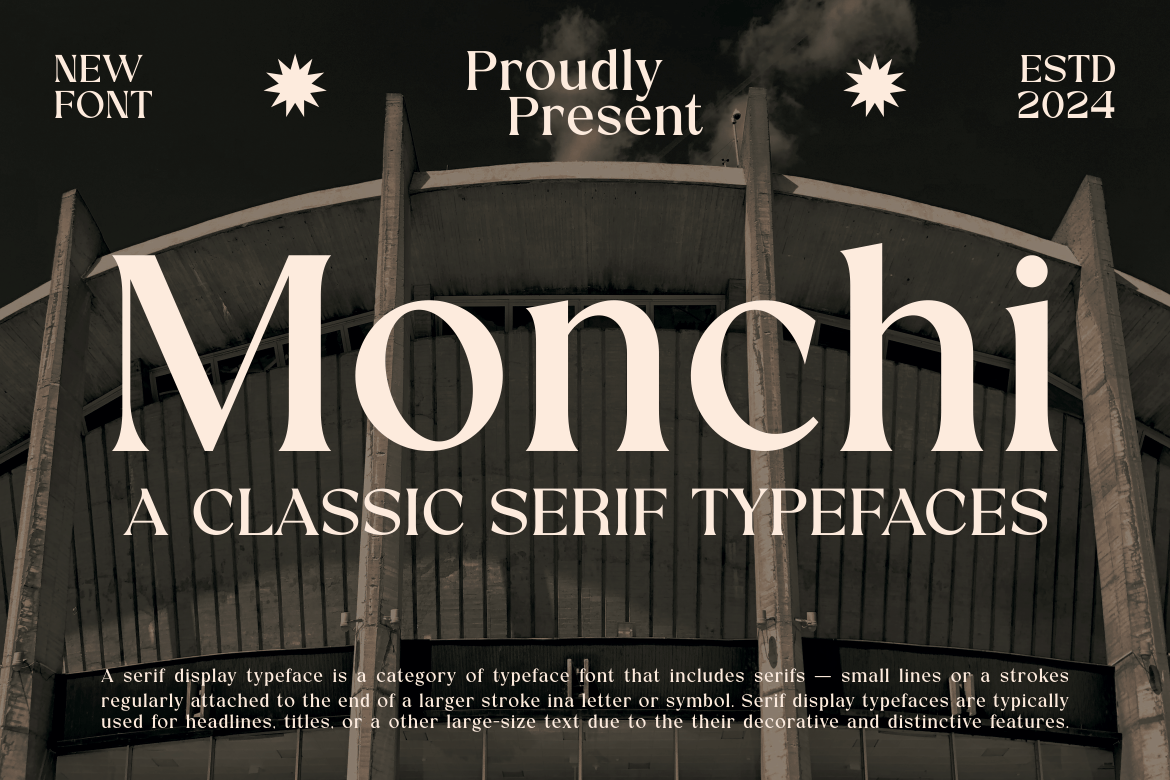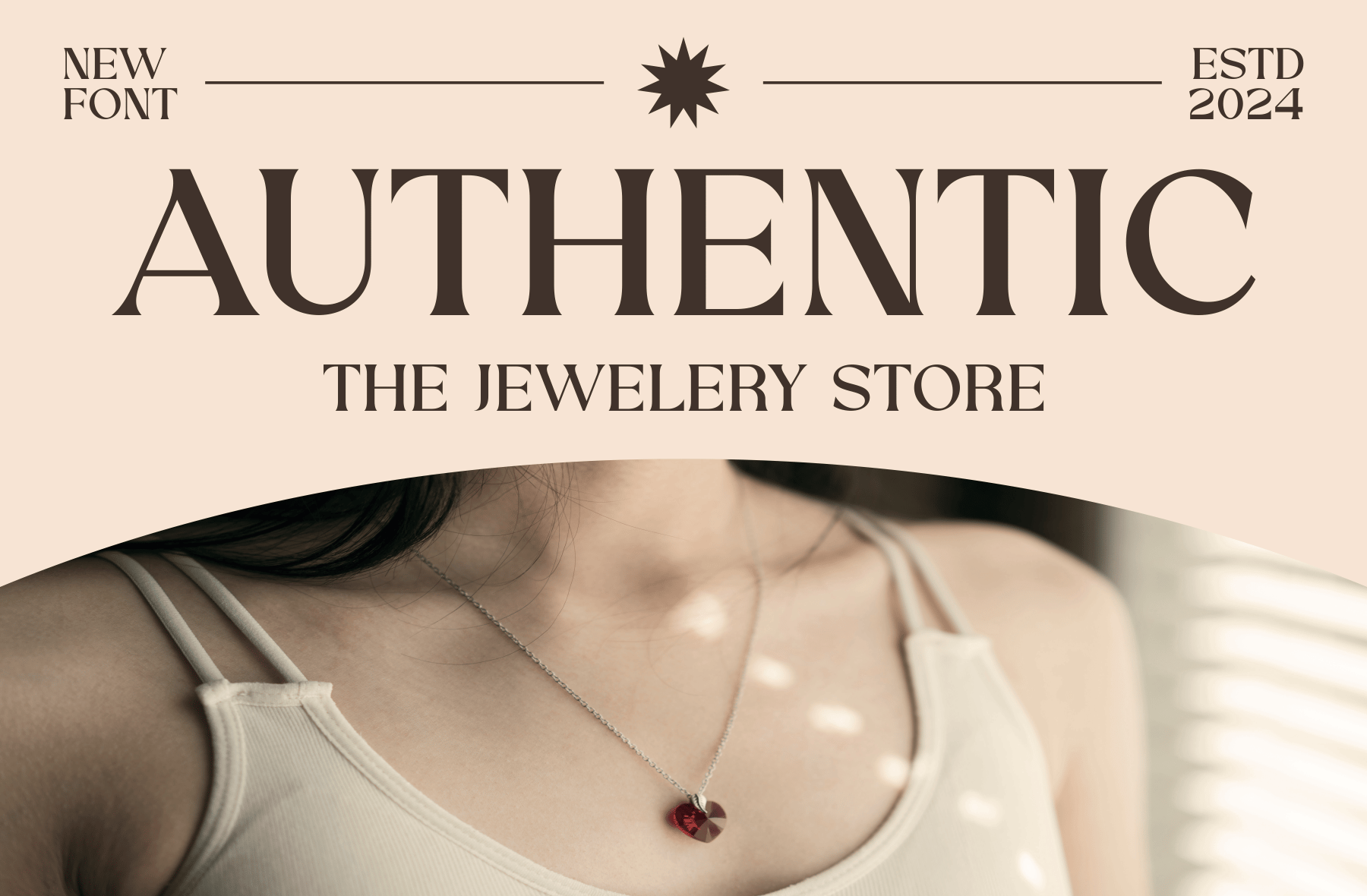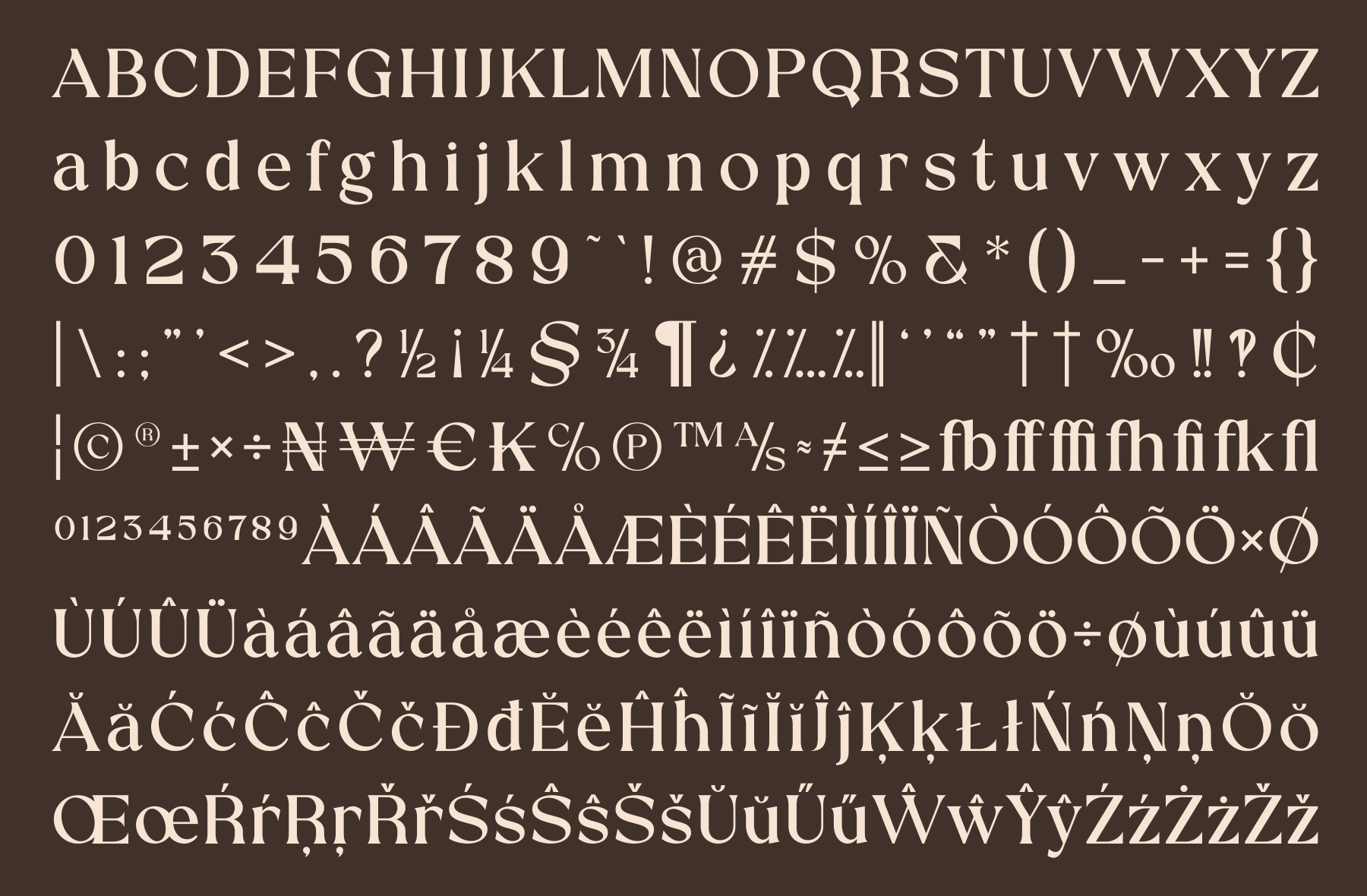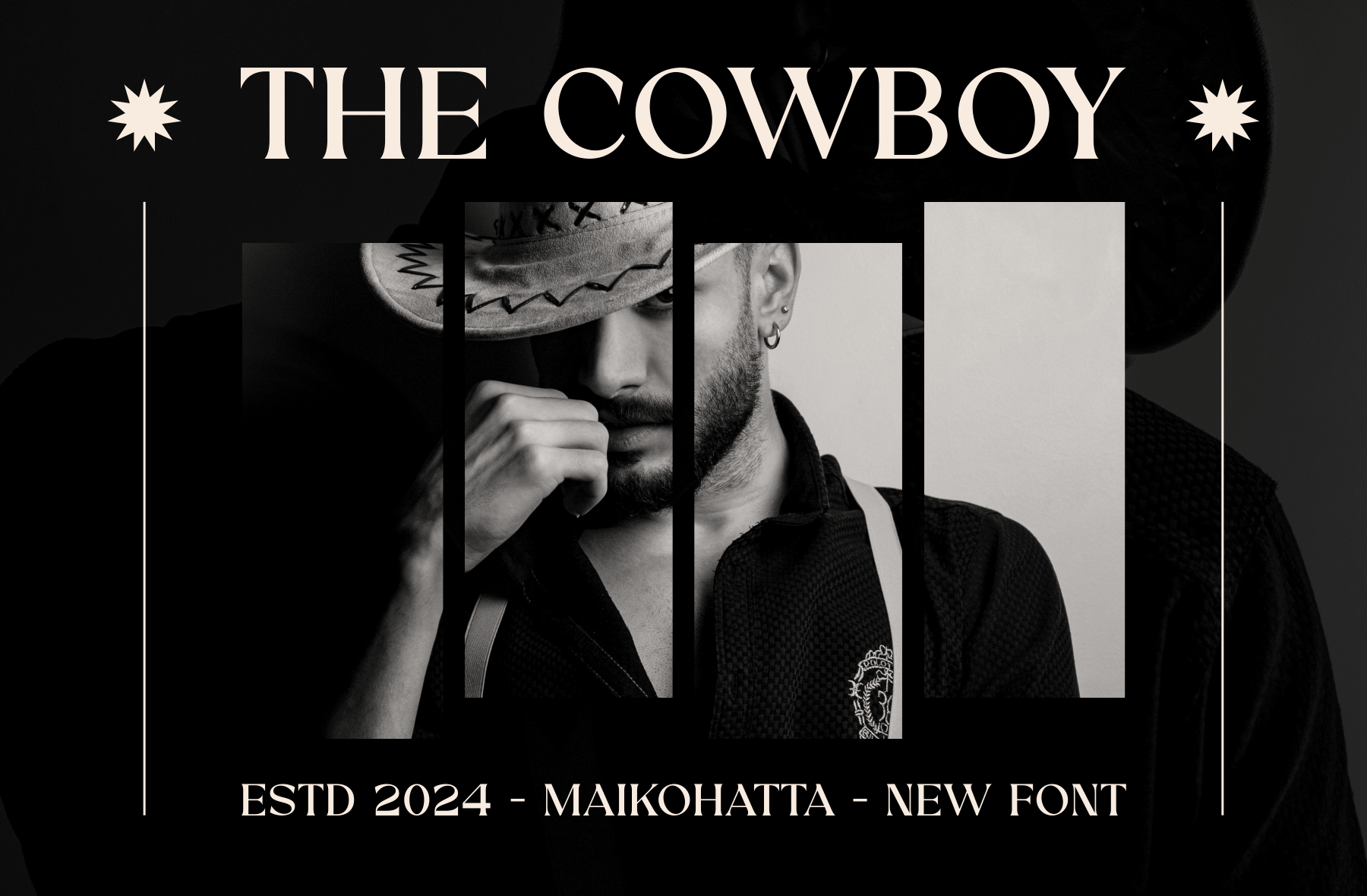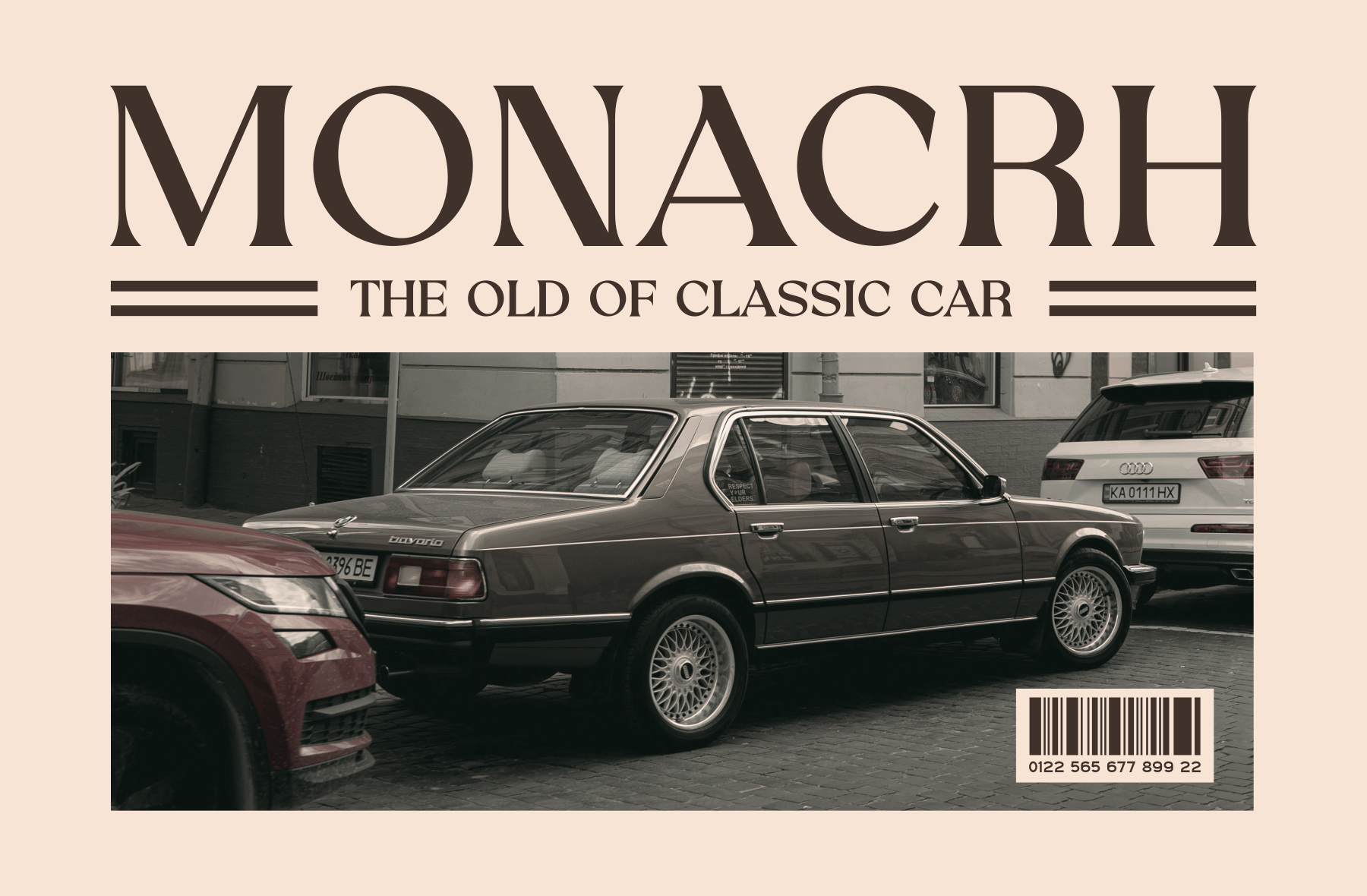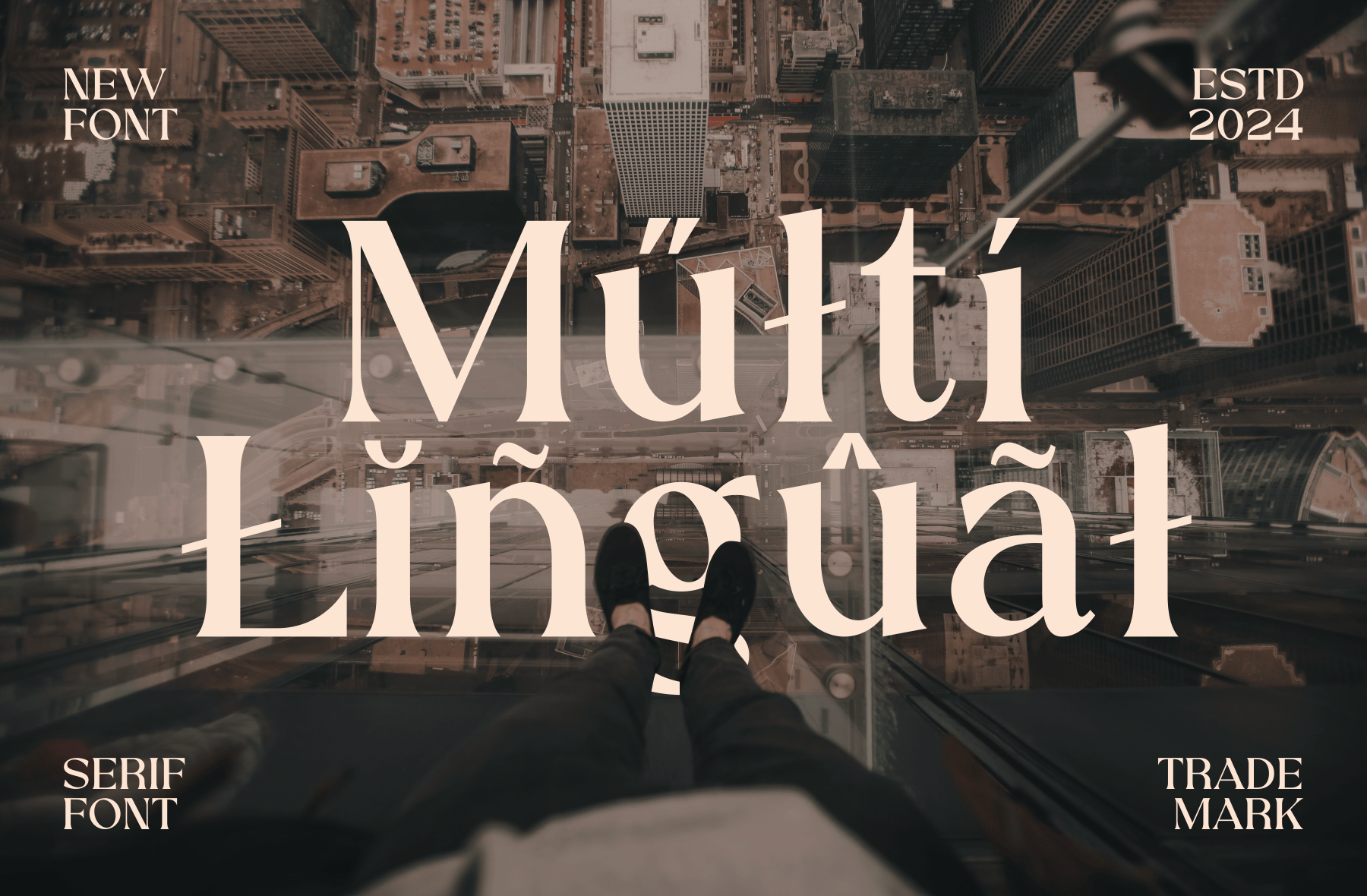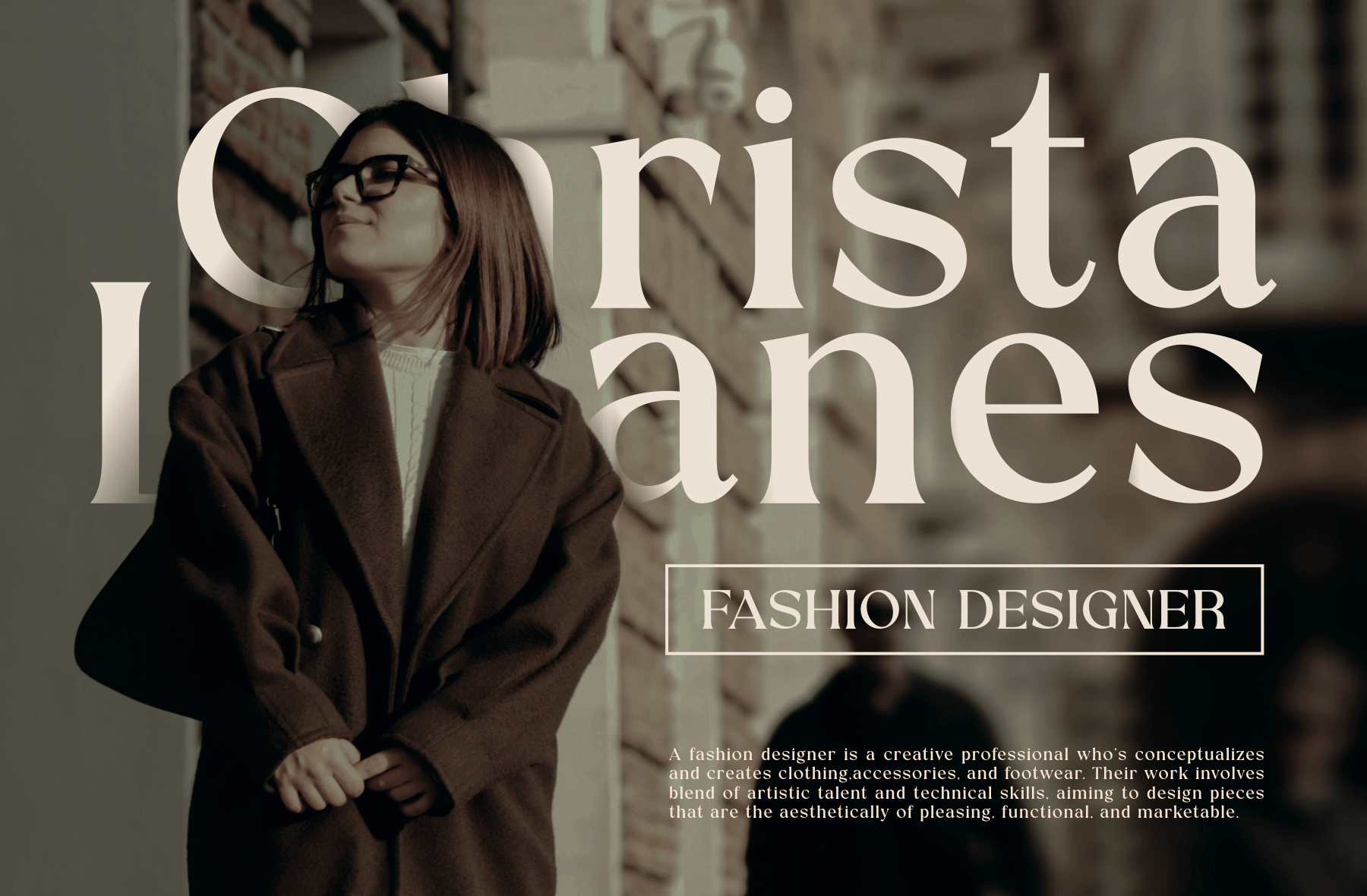
Introducing our new product **Monchi** – Classic Serif Typeface
This font has a series of small or decorative projections called serifs at the ends of its characters. Serifs provide a more formal, classic, and easy-to-read appearance to printed text. Serif fonts are often used in formal documents, books, and print publications because of their good legibility at small text sizes.
* Uppercase
* Lowercase
* Multilingual
* Ligature